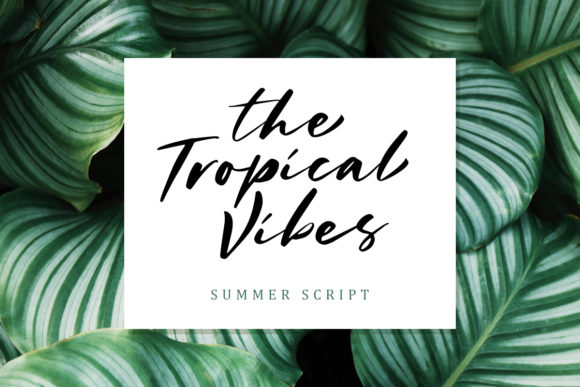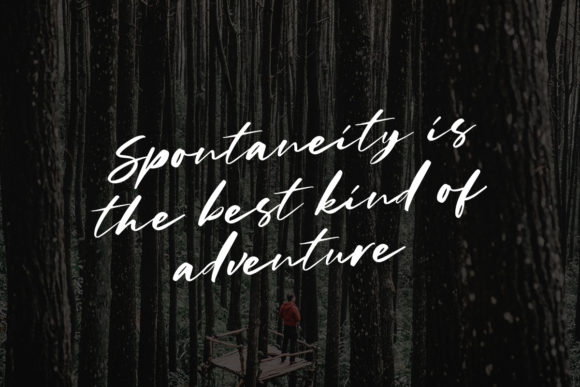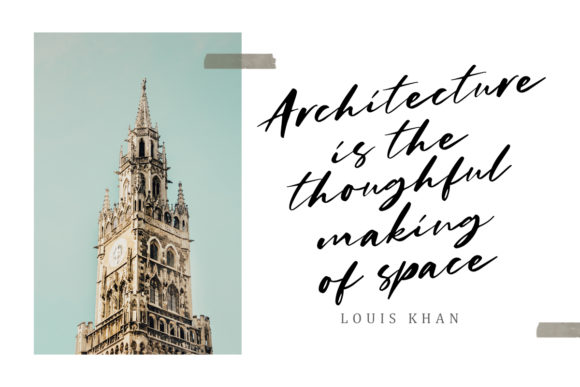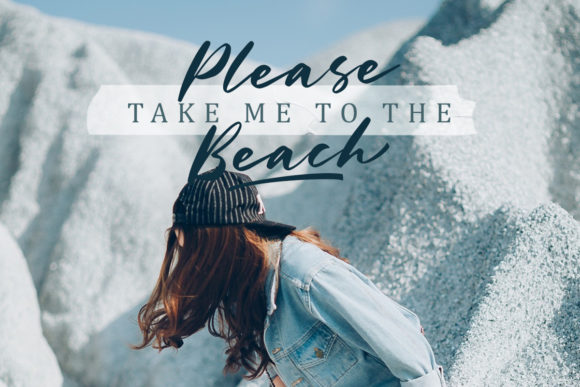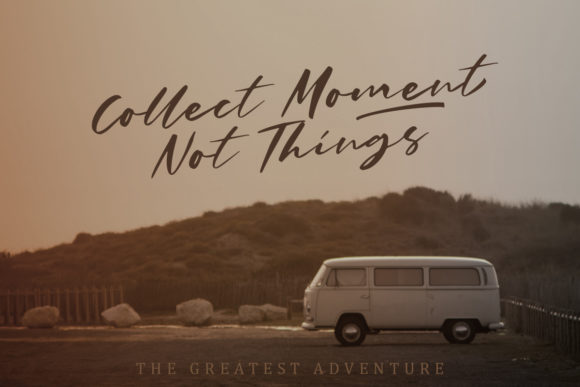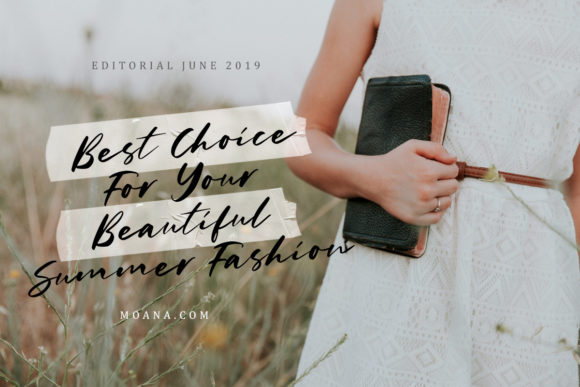
Unleash the Charm of Handwritten Scripts
There’s something magical about creating something from scratch, isn’t there? The click of the pen, the flow of the ink, and the birth of a new idea – it’s a moment that never gets old. As designers, we’re always on the lookout for the perfect tool to bring our visions to life, and that’s where the Charlotta Script comes in.
This natural handwritten script has a contemporary feel that’s hard to resist. With its modern charm, it’s the perfect addition to any design project. Whether you’re crafting a brand identity, creating a social media campaign, or designing a website, the Charlotta Font is sure to add a touch of personality and whimsy to your work.
Key Features of Charlotta Font
- Unique Characteristics: The font features a unique blend of elegant and playful styles, making it perfect for creating eye-catching designs.
- Font Weight and Style: The font is available in 6 weights (Light, Regular, Medium, Bold, Extra Bold, and Black) and 2 styles (Regular and Italic).
Designer Review: Charlotta Font
Overall, I think Charlotta Font is a beautiful and elegant script font. It’s perfect for any project that needs a touch of sophistication and class. ✨
- Unique Character Set: Charlotta Font has a wide range of characters, including swashes and ligatures, which makes it perfect for long text blocks.
- Legibility: The font is highly legible, even at small sizes, making it perfect for body text or captions.
- Style Versatility: Charlotta Font can be used in a variety of styles, from modern to vintage, making it a great choice for designers who like to experiment.
- Not Ideal for Headlines: While Charlotta Font is perfect for body text, it may not be the best choice for headlines or titles due to its subtle style.
- Requires Careful Use: The font’s elegance can be easily lost if not used carefully, so it’s essential to balance it with other design elements.
- May Not Be Suitable for Sans-Serif Projects: Charlotta Font is a script font, so it may not be the best choice for projects that require a sans-serif font.
I’d give Charlotta Font 4 out of 5 stars. While it’s not perfect for every project, it’s a beautiful and elegant script font that’s perfect for designers who want to add a touch of sophistication to their work. With careful use, it can elevate any project to the next level. ⚠️ Just be aware of its limitations, and you’ll be golden! ✨
Charlotta Font is ideal for creative and elegant designs. Some common use cases include:
- Fashion and lifestyle magazines.
- Artistic and creative portfolios.
For the most out of Charlotta Font, use it in combination with other elegant and creative elements, such as watercolor backgrounds or floral patterns.